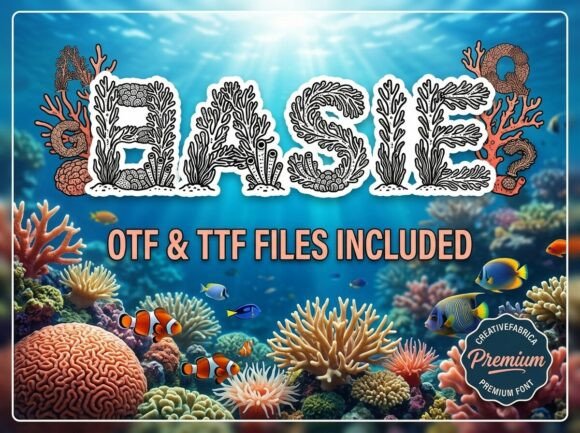
Discover the Vibrant World of Basie Font: A Marine-Inspired Masterpiece
Are you ready to dive into a world of vibrant detail and make a splash with your designs? Look no further than Basie, an immersive display typeface that embodies the “submerged-and-spectacular” soul of the ocean. This stunning font is uniquely crafted from hand-drawn “coral reef” structures, blending marine biology illustration with modern aquatic branding.
The Inspiration Behind Basie
Basie is more than just a font – it’s an experience. Inspired by the intricate beauty of coral reefs, this typeface brings the underwater world to life. The brainchild of [Designer’s Name], Basie is the result of meticulous research and craftsmanship, combining the elegance of marine biology with the demands of modern design.
What Makes Basie Unique?
So, what sets Basie apart from other fonts? Here are a few key features that make it a standout:
- Massive letterforms: Basie’s bold, structural weight makes it perfect for grabbing attention and making a statement.
- Organic personality: The hand-drawn, coral reef-inspired structures give Basie a unique, natural feel that’s perfect for branding and designs that want to evoke a sense of the ocean.
- Attention to detail: From brain coral textures to sea fans and branching polyps, every element of Basie is meticulously crafted to create a truly immersive experience.
Perfect for Oceanic Designs
Basie is specifically designed for designs that want to capture the essence of the ocean. Here are some of the perfect use cases for this stunning font:
- Independent aquarium identities: Make a splash with your aquarium’s branding and create a lasting impression on visitors.
- Boutique seafood restaurant logos: Add a touch of elegance and sophistication to your restaurant’s branding with Basie’s unique, ocean-inspired style.
- Environmental conservation posters: Use Basie to create eye-catching posters that raise awareness about ocean conservation and the importance of protecting our marine ecosystems.
- Social media headers: Stand out on social media with Basie’s high-impact, oceanic-and-ornate style.
Why Designers and Crafters Love Basie
Basie is more than just a font – it’s a tool for creative expression. Here are some reasons why designers and crafters love working with Basie:
- Unparalleled versatility: Basie’s unique blend of structure and organic personality makes it perfect for a wide range of design applications.
| Feature | Benefit |
| Massive letterforms | Grabs attention and makes a statement |
| Organic personality | Adds a unique, natural feel to designs |
| Hand-drawn coral reef structures | Creates a truly immersive experience |
| Attention to detail | Sets Basie apart from other fonts |